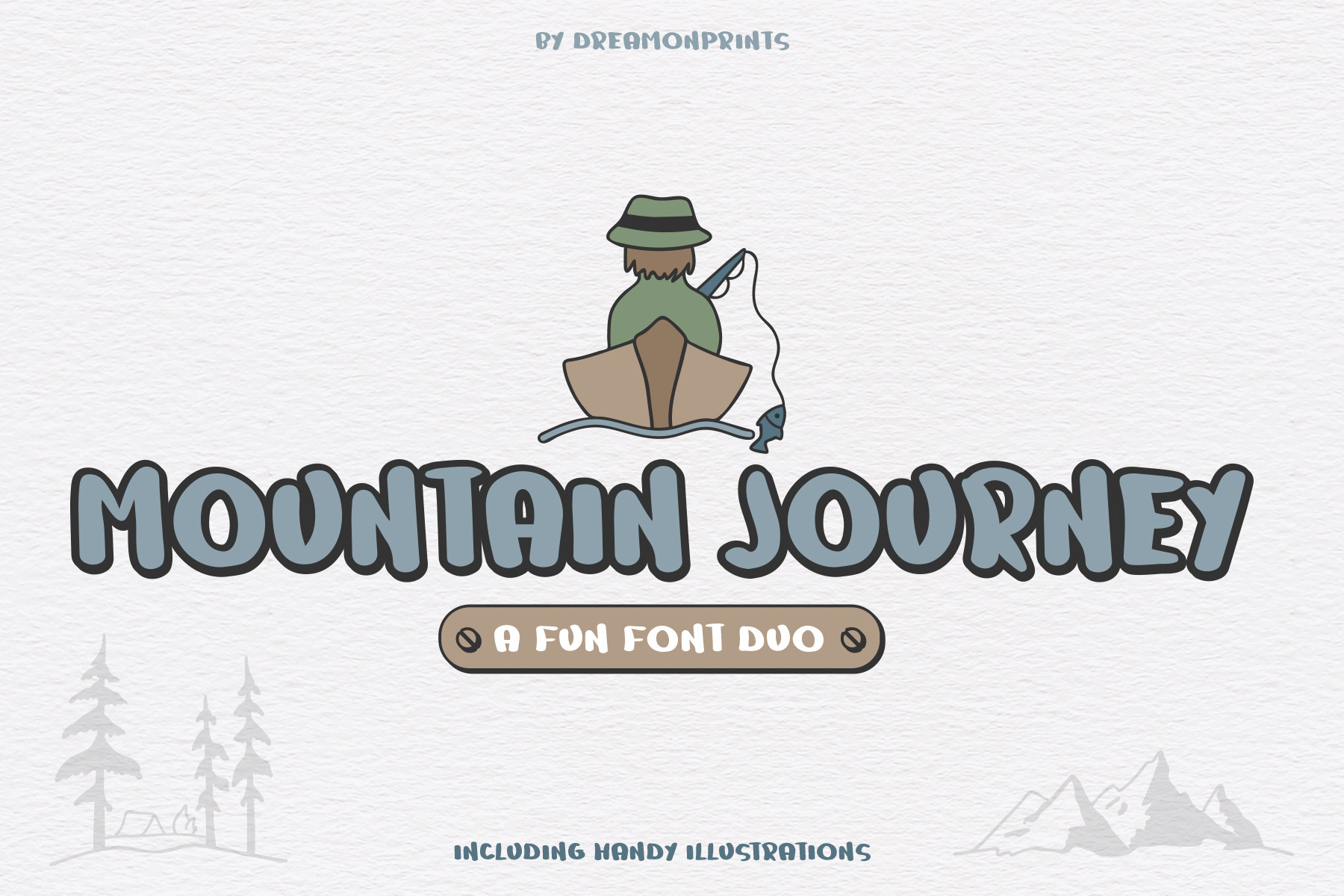
Mountain Journey - a Fun Font Duo
"Mountain Journey" is a hand drawn font duo - a fun display and symbols fonts with beautiful illustrations.
Perfect for greeting cards, branding, stationery design, social media, packaging, magazine layouts, prints and many more!
Mountain Journey font duo comes with 300 glyphs and 16 illustrations. The alternative characters were divided into several Open Type features - Stylistic Alternates, Contextual Alternates, Discretionary and Contextual Ligatures. The Open Type features can be accessed by using Open Type savvy programs such as Adobe Illustrator, Adobe InDesign, Adobe Photoshop, Corel Draw X version. This Font Duo has PUA unicode so all the alternative characters can be accessed in Cricut and Silhouette too.
Regular and Symbols are part of the Mountain Journey font duo.